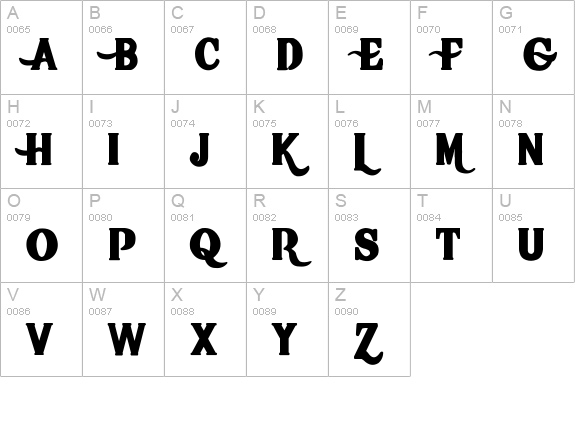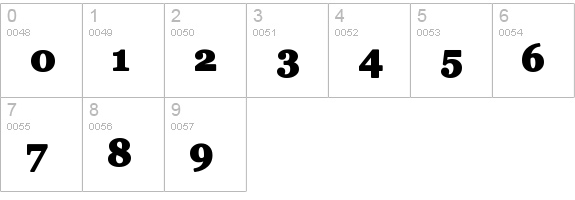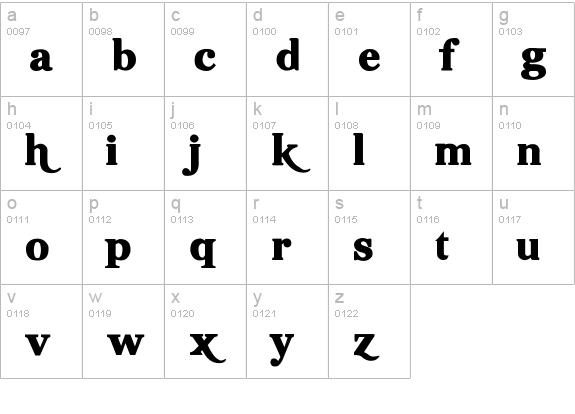
Introducing Hot Pizza font, a deliciously bold and eye-catching typeface perfect for adding a touch of warmth and flavor to your designs. Inspired by the irresistible charm of a freshly baked pizza, this font exudes a sense of comfort and satisfaction with its rounded edges and playful curves. Hot Pizza font is the perfect choice for food-related projects, menu designs, branding materials, and more. Its versatility allows it to work seamlessly in both digital and print applications, making it a must-have addition to your font collection. Best of all, Hot Pizza font is available for free download at FontsMarket.com. So go ahead, spice up your designs with a dash of Hot Pizza and let your creativity soar!